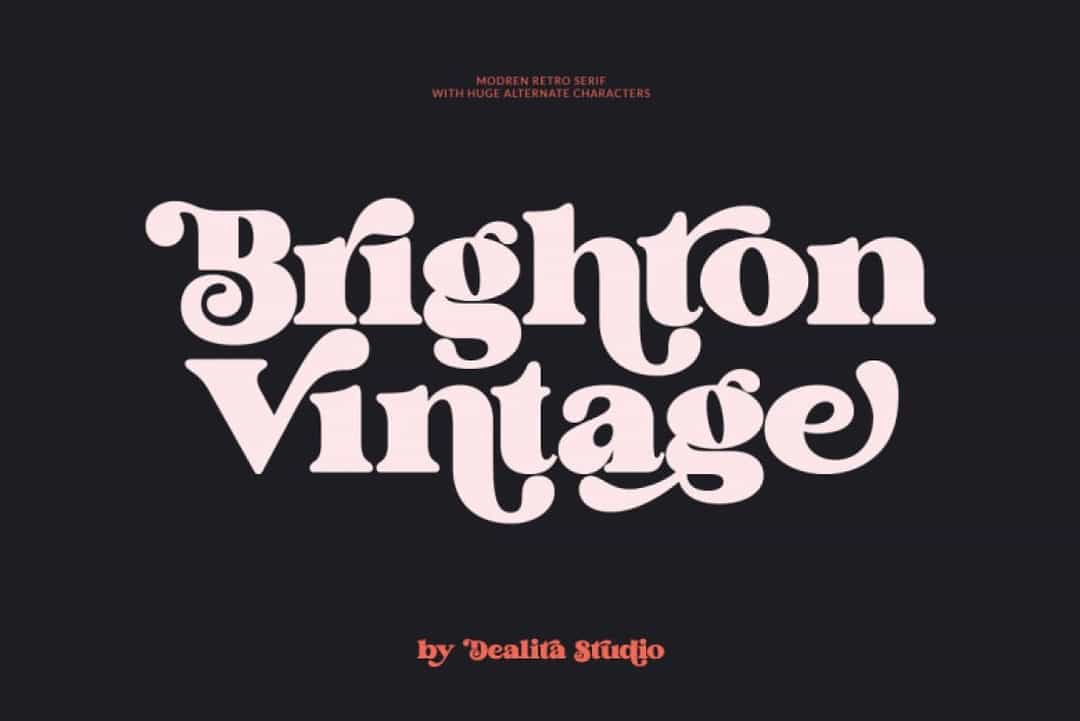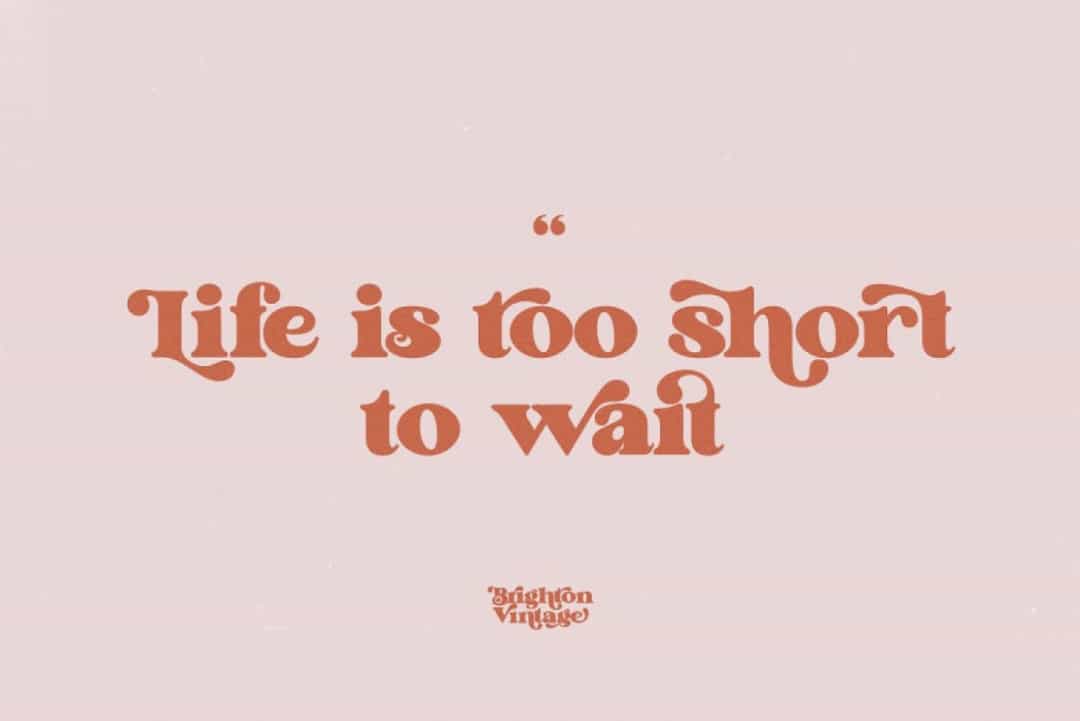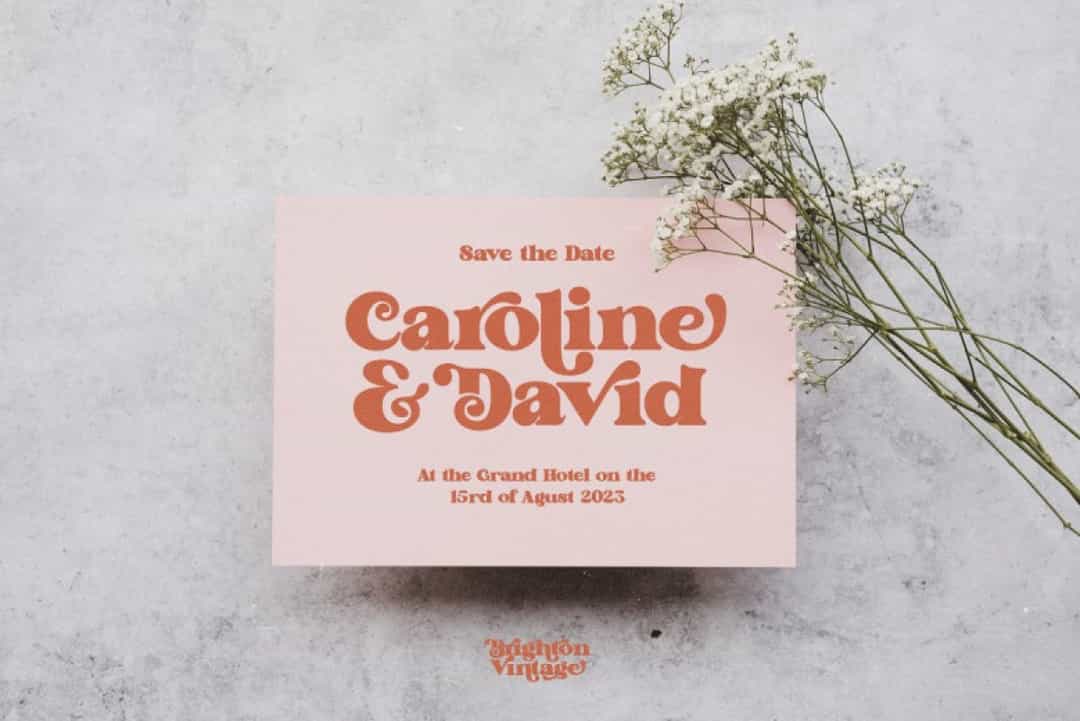
Discover Brighton Vintage Font, part of the Serif Retro Vintage collection—a versatile and unique font perfect for adding a personal touch to your projects. Download it for free and enjoy crafting designs with style, from invitations to social media posts. This font is available exclusively for personal use, giving you the freedom to create without limits. Unlock your creativity with Brighton Vintage Font today!
Brighton Vintage is an elegant typeface, both vintage and bold in design. The thick curves give this font an 80s vibe while serifs bring it back into tradition. Brighton Vintage can be used in logo designs as well as formal designs such as labels, invitations and magazines or for greeting/wedding cards packaging fashion/makeup/stationery packaging or novels and labels or advertisements of any sort.